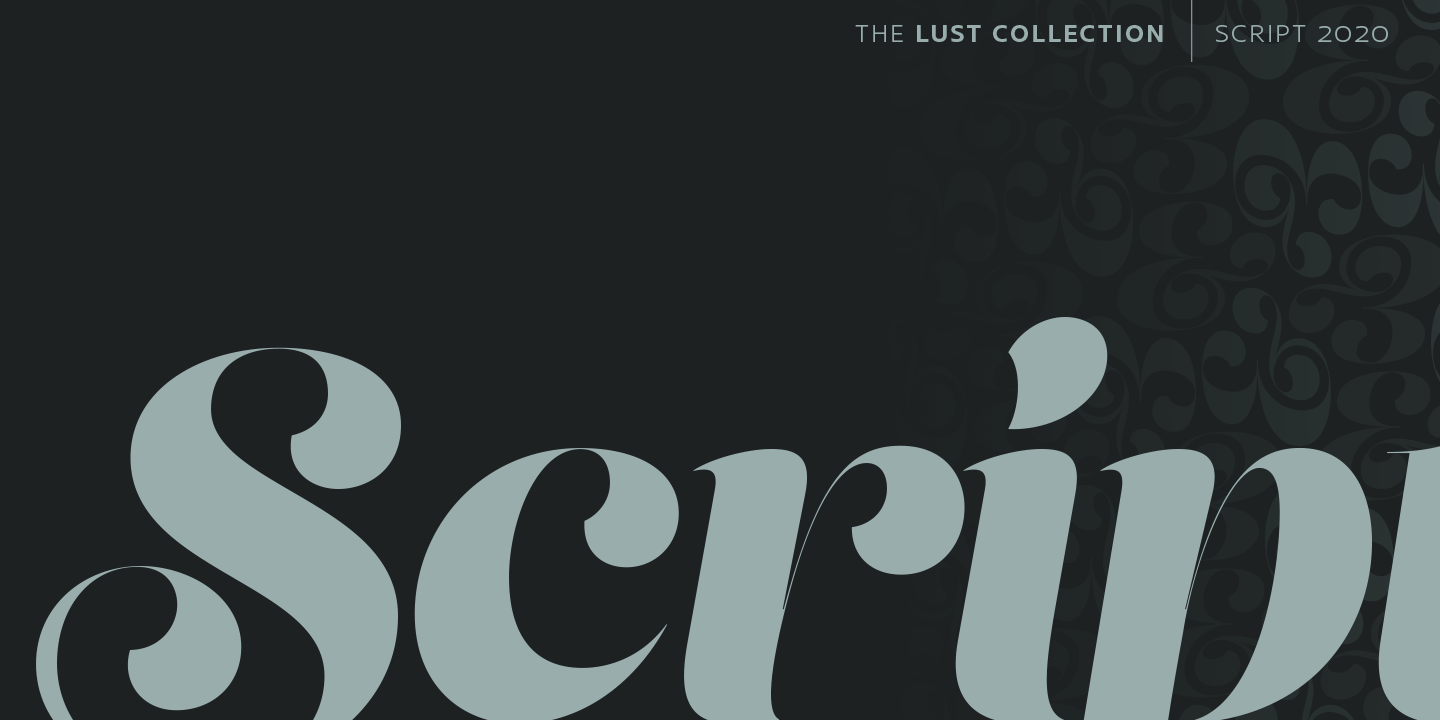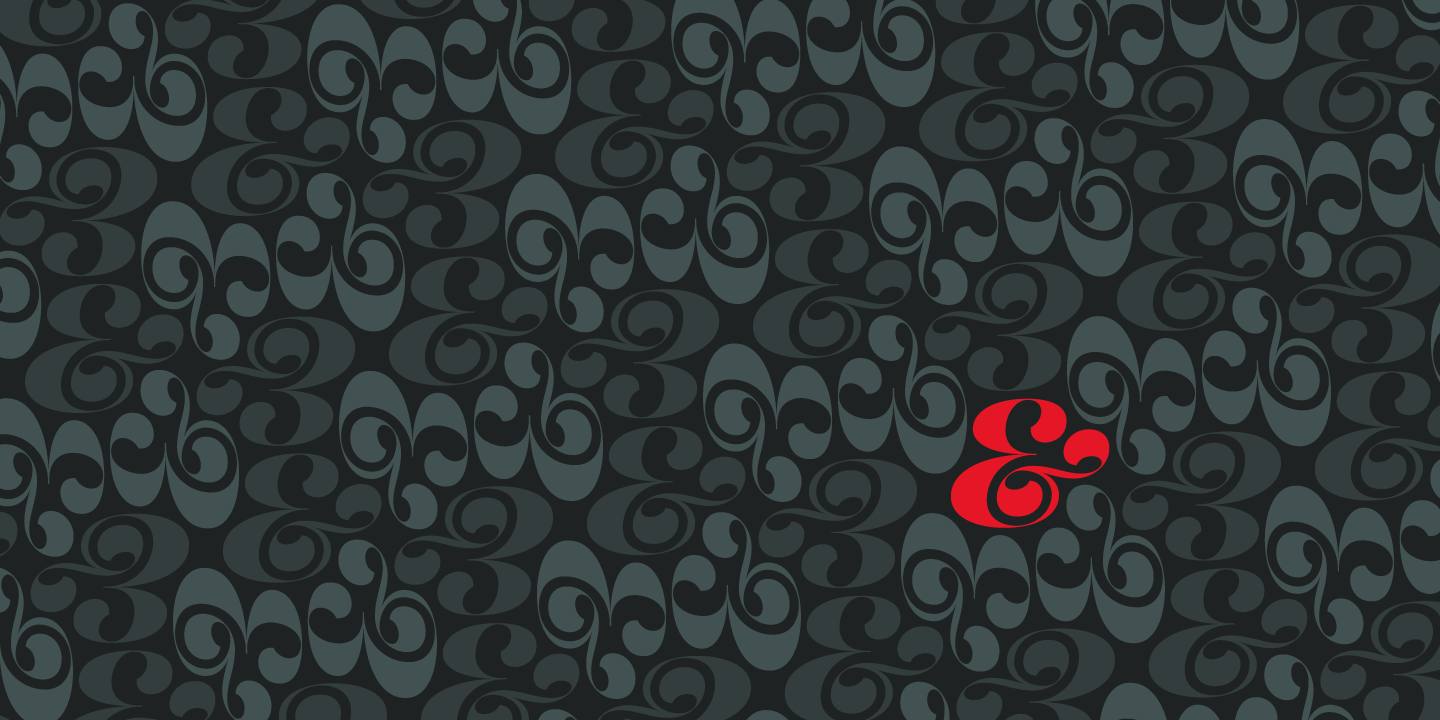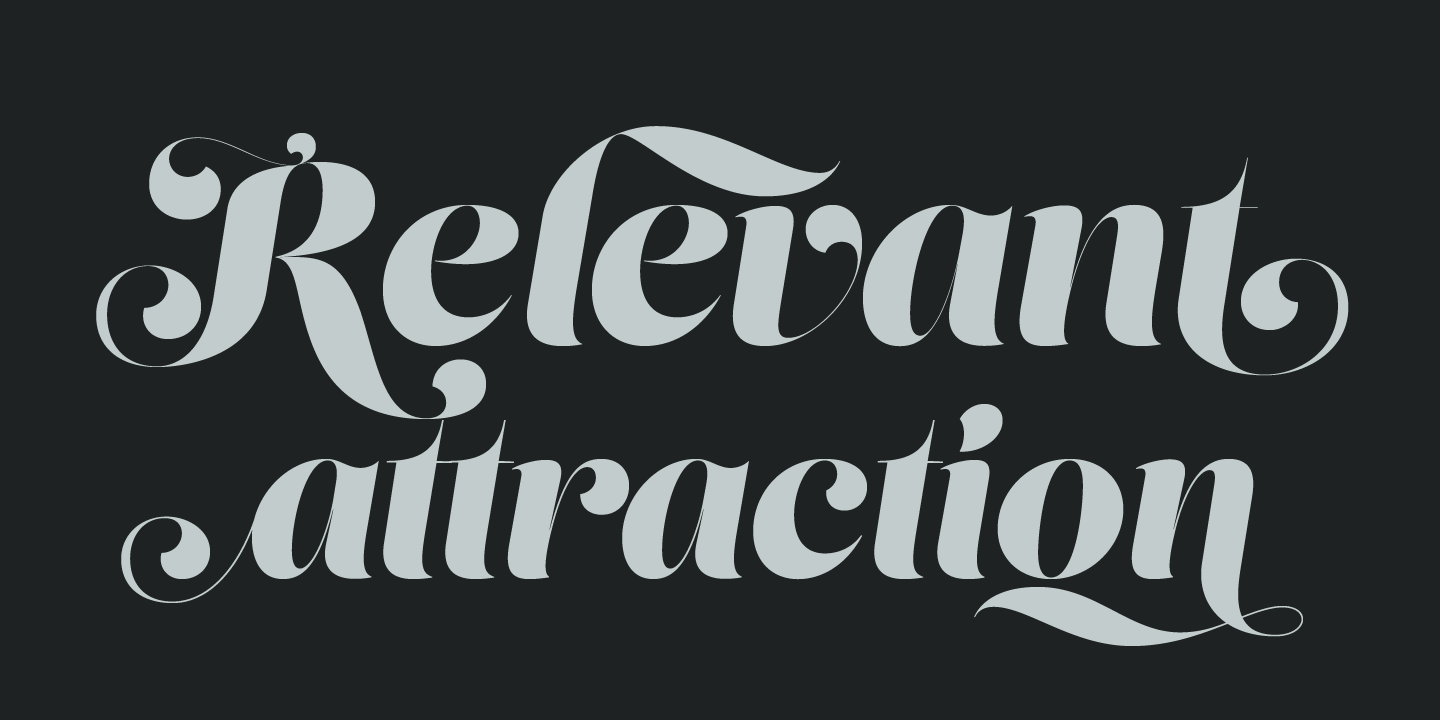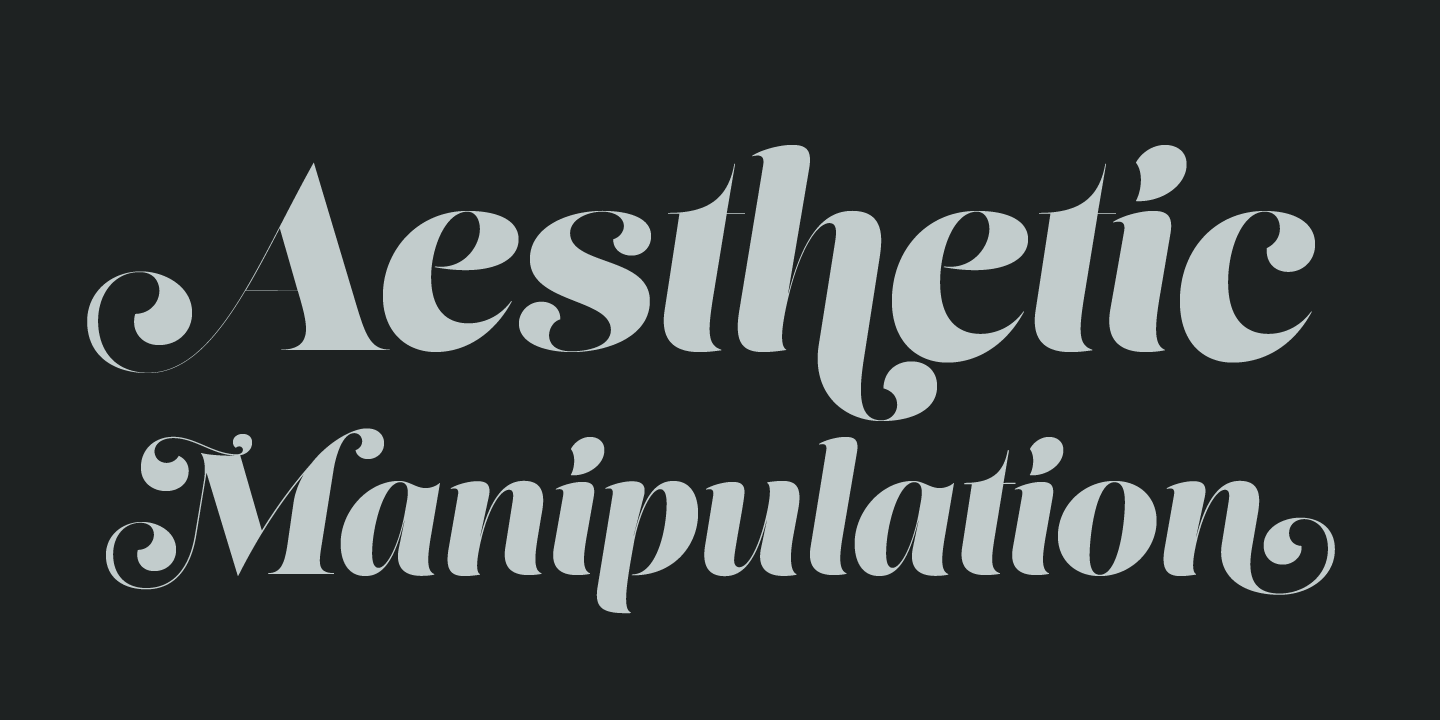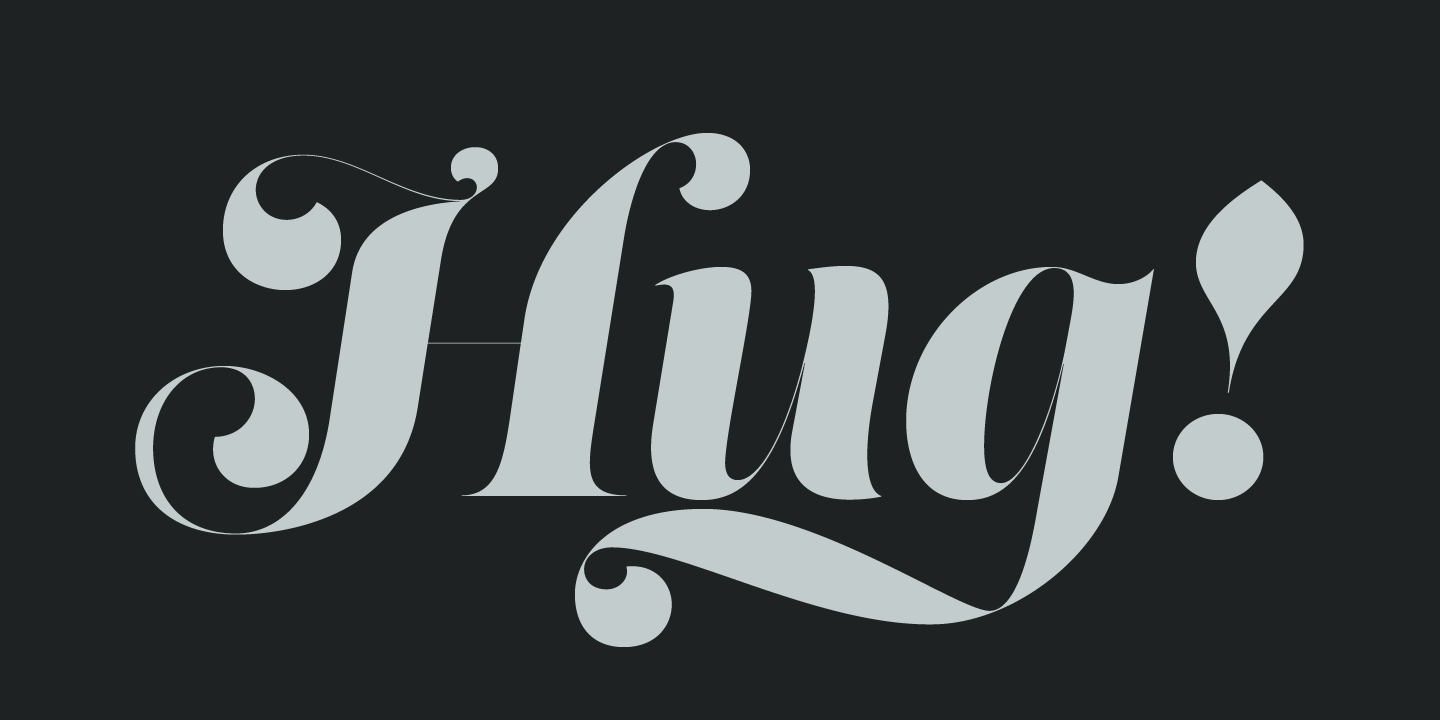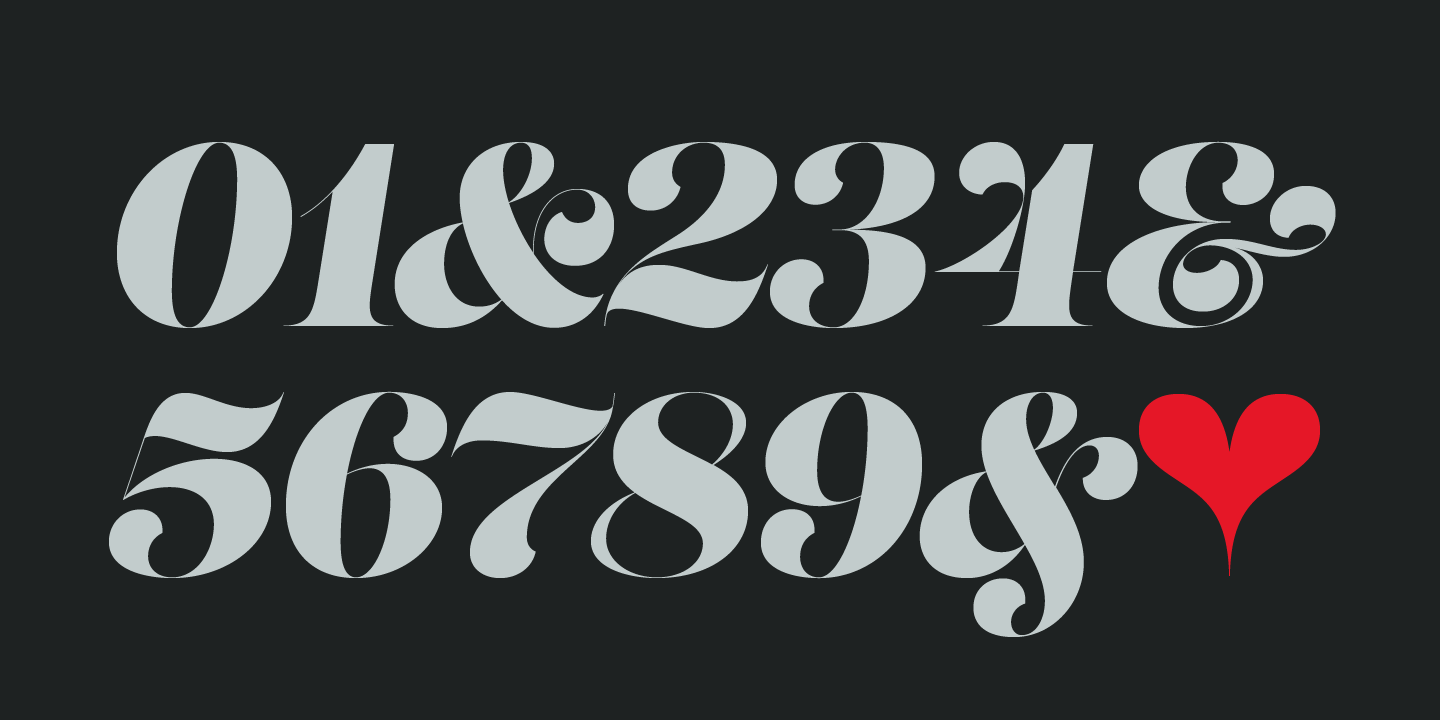
Lust Script
Font Family by Positype
When I developed Lust, it was my overly indulgent attempt to infuse wanton sensuality in a typeface. I wanted to create something that was over the top and veered away from my loose 'sushi? scripts and rigid sans serifs. To do that, it had to be, well, a little sexy. For me. the solution was to create a curvy serif. A serif would be a different endeavor for me since I consciously choose not to do many serifs?because there are so many wonderful options already. Because of this, my approach (and design) had to be different. Here's how I broke down what I felt it needed to have under the covers to create a ?lusty? typeface: Lots of contrast, almost demure, coy contrast mixed with the flowing curves of a woman's body, incomplete, almost teasing ball terminals, and serifs that went on forever? so sharp they would draw blood if you touched them. Well, mission accomplished. But, while I was finishing Lust, the idea of taking it further, making it, well, sexier took hold. The end result is just more? more experience, more curves, more of everything. It looks good dressed down or in a little black dress. Lust Script plays well with others too? it works beautifully within the Lust Series styles and with the new Lust Slim.
WARNING! I cannot stress this enough. Please know what you are getting into with this typeface. Like a supermodel, it can't be squeezed into every situation. It needs room and size to breathe. The regular weights can support 36-point or higher settings, whereas the display weights shine above 72-point (preferably 100-point).
Lust Script is packed with alternates to play with? enough to turn you on and satisfy. Utilizing the OpenType features (and Glyph palette) wisely will have you weaving through endless variations of Stylistic, Contextual, Titling, Historical and Swash alternates.